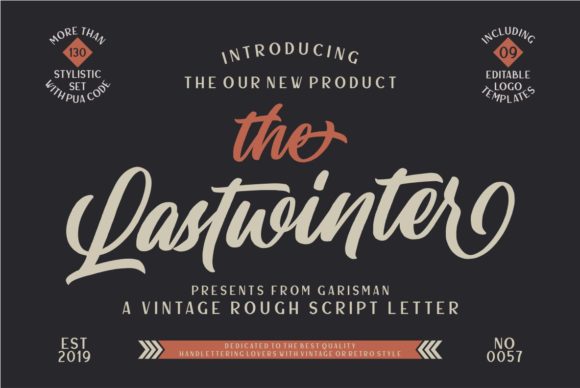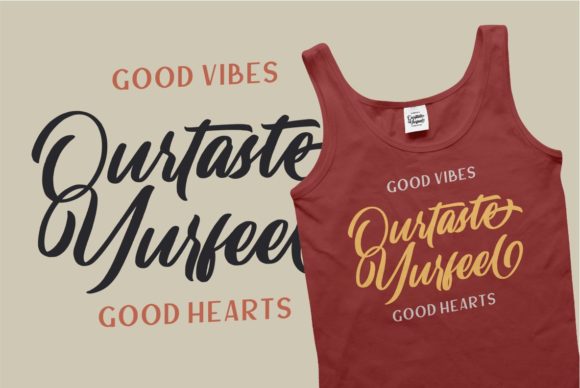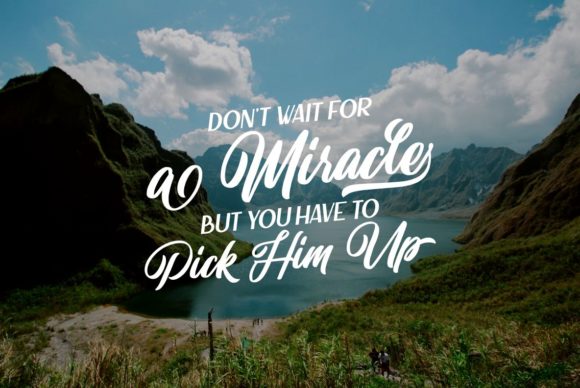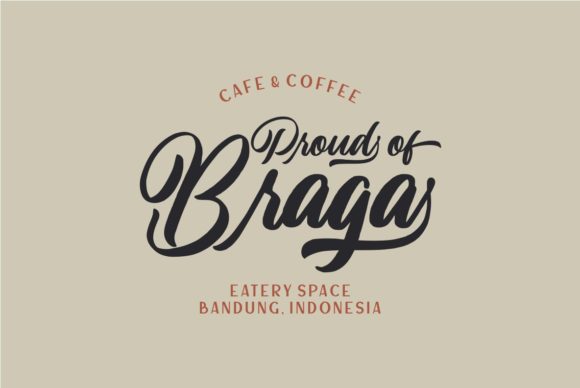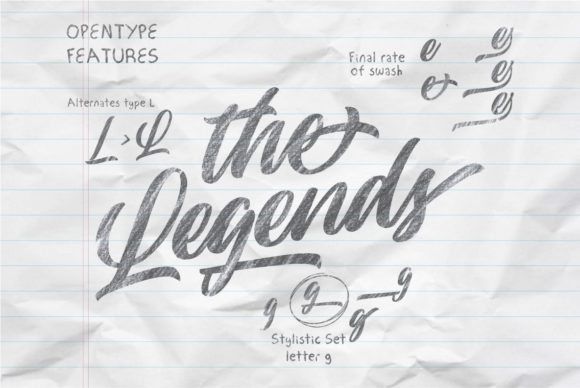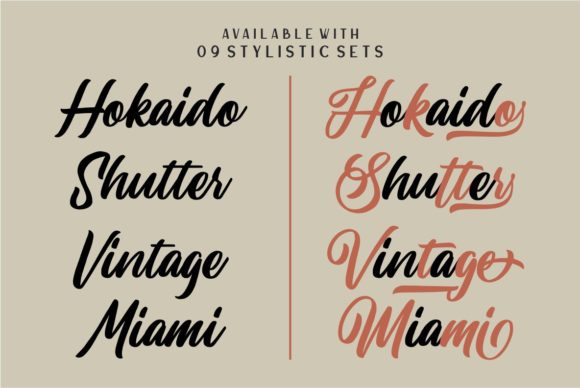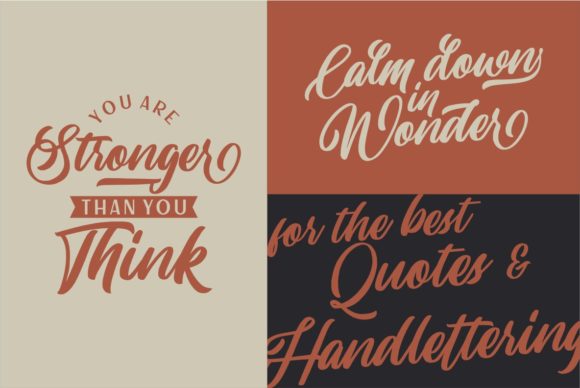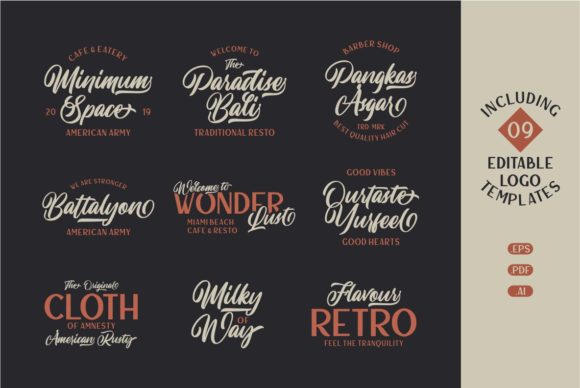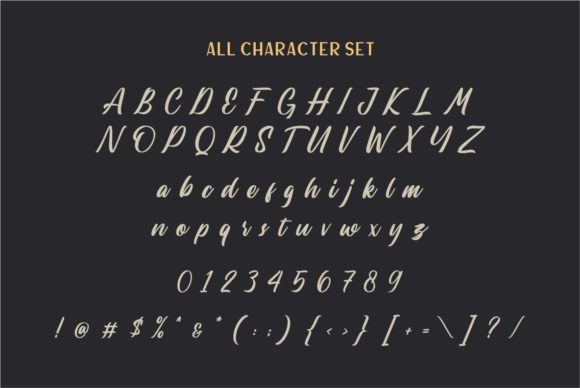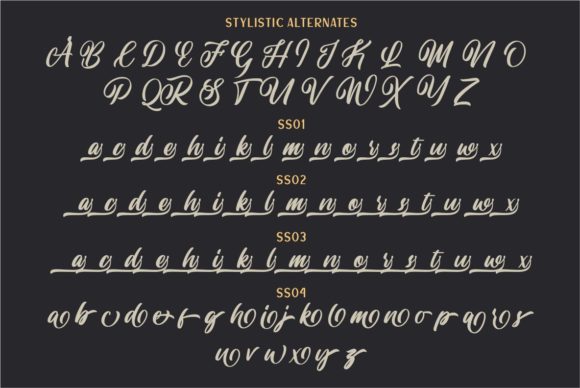
HomeScript FontsLastwinter Font Script Fonts Lastwinter Font FacebookXPinterestWhatsApp Lastwinter Font Poster 2 Lastwinter Font Poster 3 Lastwinter Font Poster 4 Lastwinter Font Poster 5 Lastwinter Font Poster 6 Lastwinter Font Poster 7 Lastwinter Font Poster 8 Lastwinter Font Poster 9 Lastwinter Font Poster 10 Lastwinter Font Poster 11 About Lastwinter Font Lastwinter is a stunning handwritten font with a vintage feel. It will turn any design idea into a true standout! DOWNLOAD NOW People also explored Lovely Pretty Font Cute Queen Font Zero Cross Font Notsure Font La Calston Font Paradise Punch Font Ballerina Font Lokal Font Canvas Acrylic Paint Tubs 244 0 TagsLastwinter Font Previous articlePanda FontNext articleQuatry Font LEAVE A REPLY Cancel reply Comment: Please enter your comment! Name:* Please enter your name here Email:* You have entered an incorrect email address! Please enter your email address here Website: Save my name, email, and website in this browser for the next time I comment. Personal Use Free Rembank Personal Use Free Read more about this font Hello Sister Personal Use Free Read more about this font Merak Personal Use Free Read more about this font Monofonto Personal Use Free Read more about this font BLOG Using Fonts in Digital Marketing: Tips to Strengthen Your Brand Identity In the realm of digital marketing, every visual element plays a crucial role in shaping a brand's identity, and fonts are no exception. The... Transform Your Website: Elevate Your Typography with 7 Best Web Font Generators Exploring Font Trends To increase your work productivity, choose the most readable fonts.